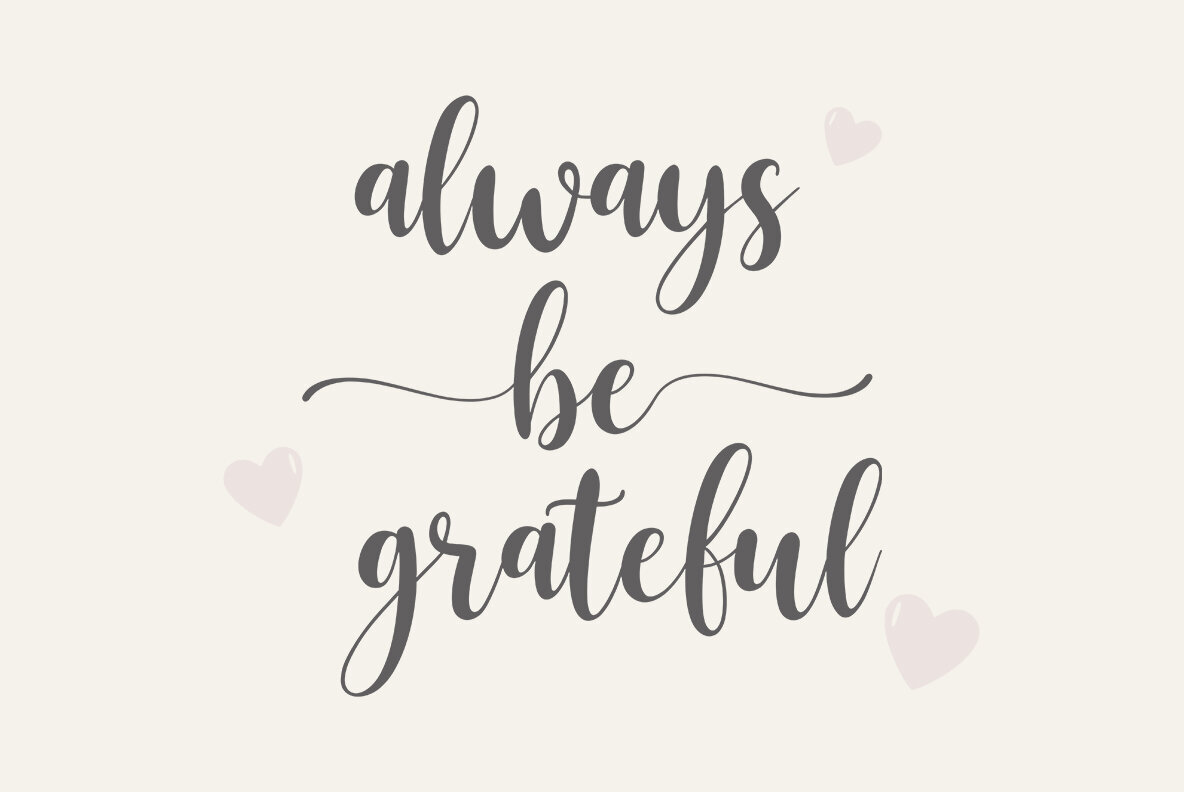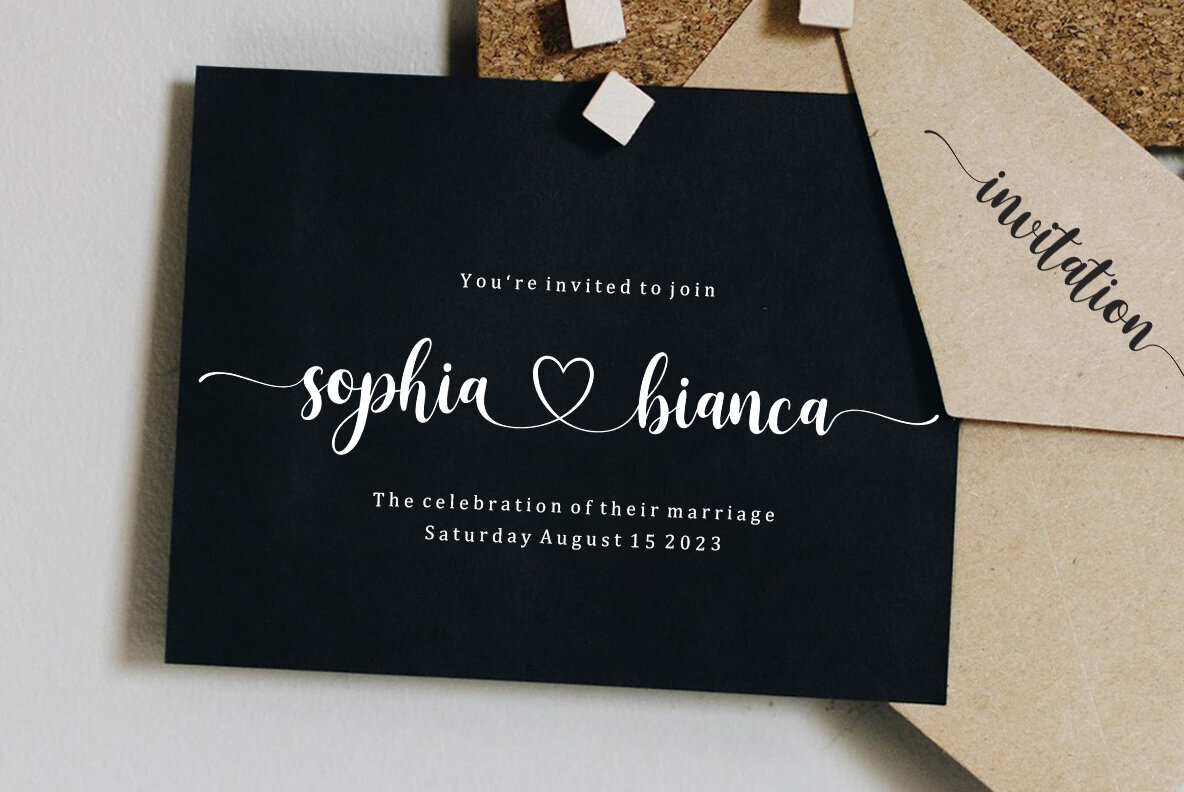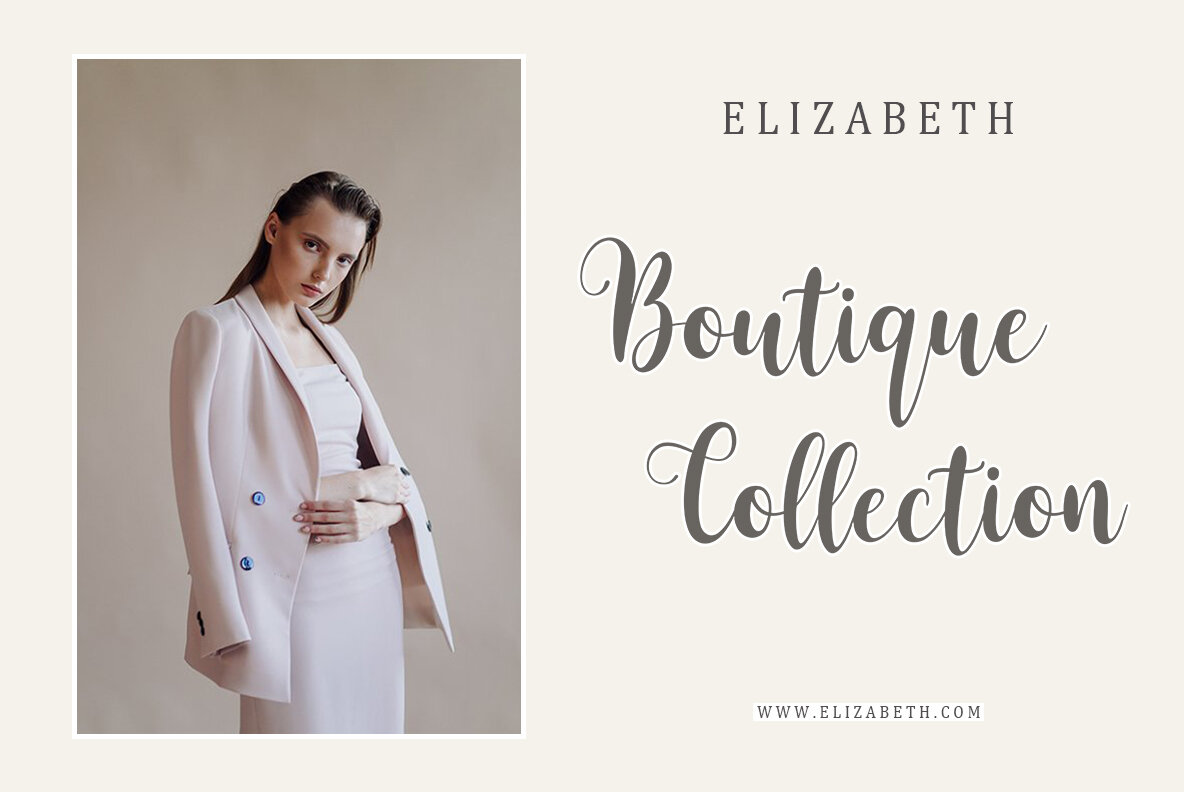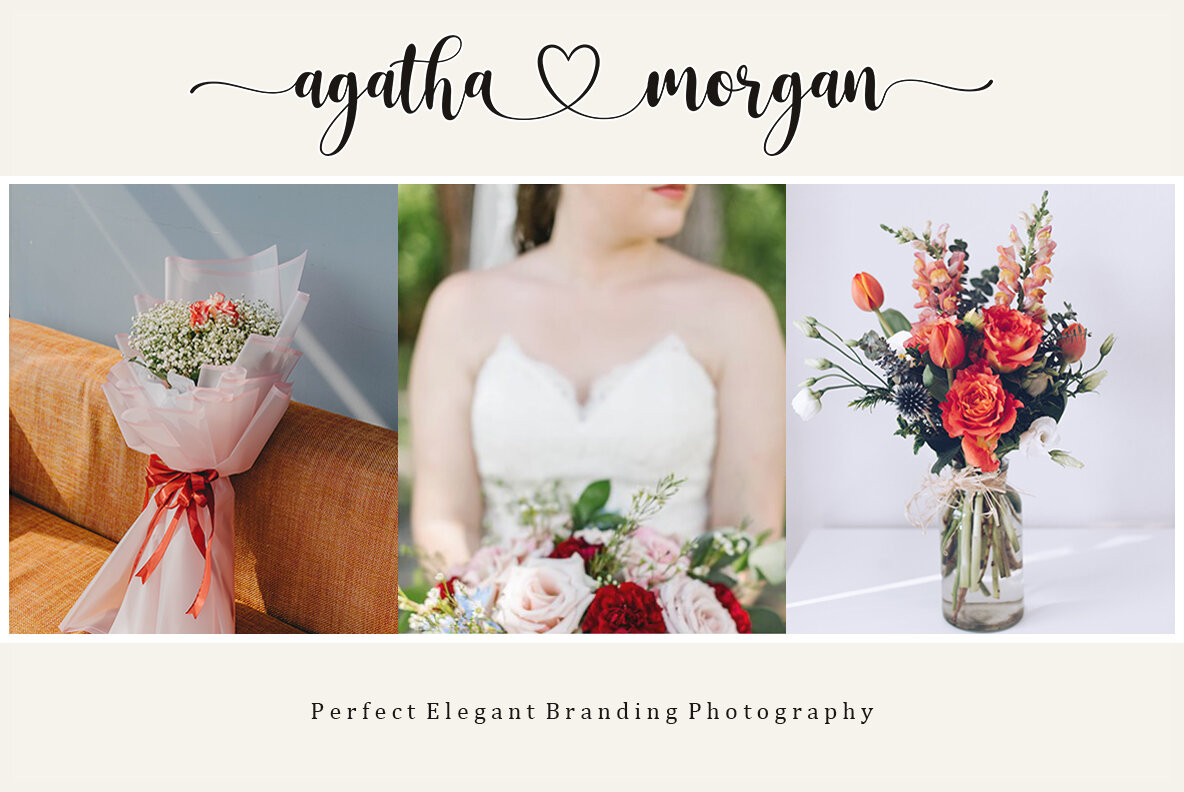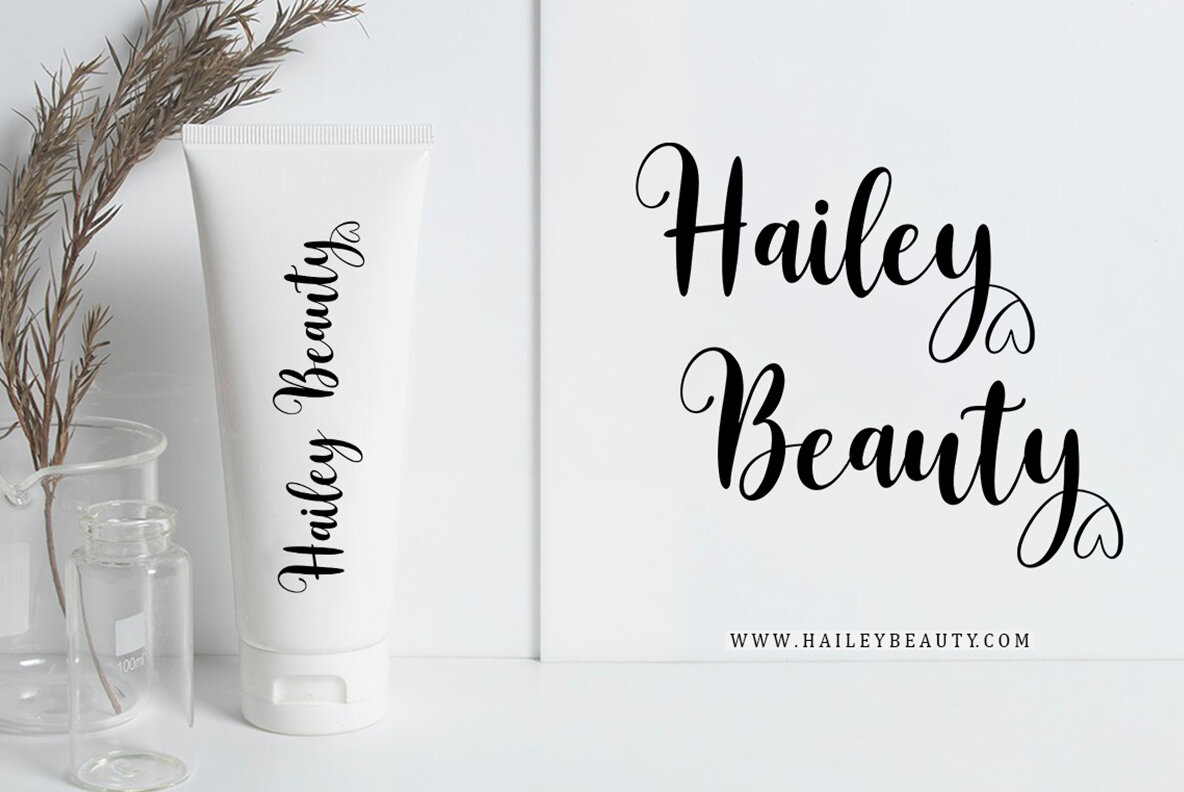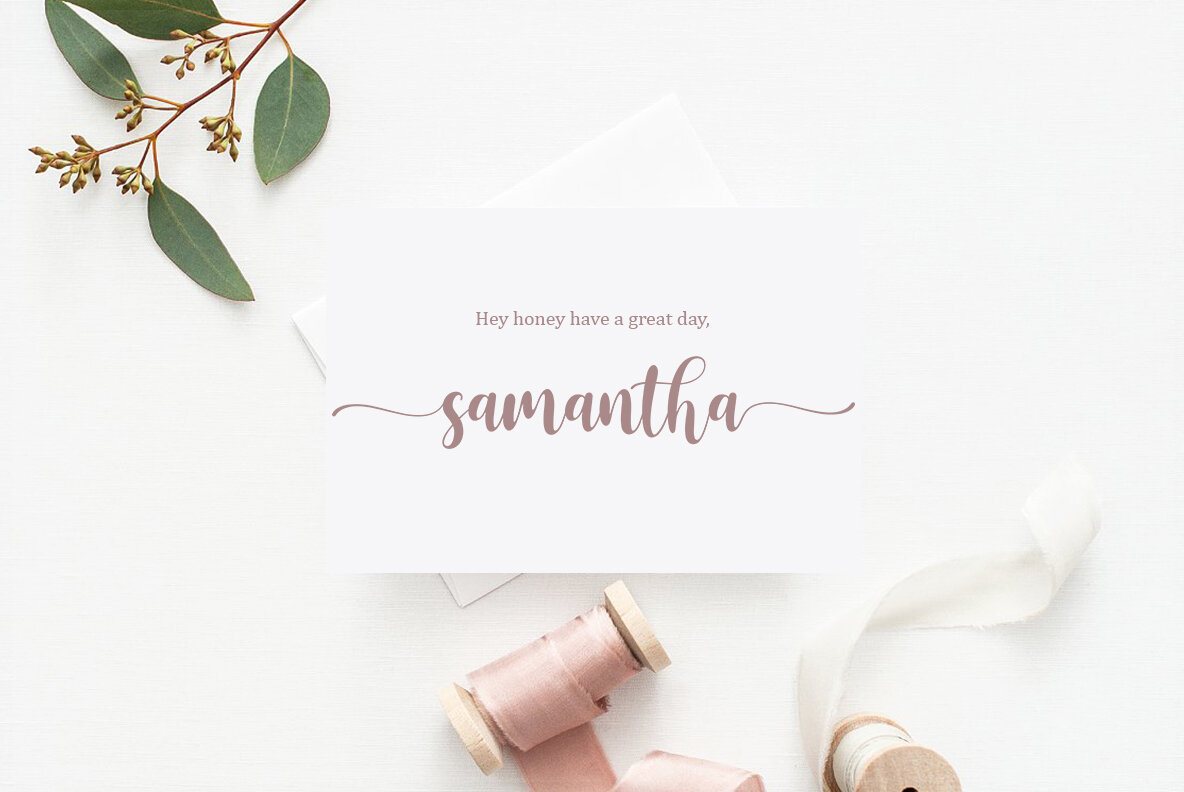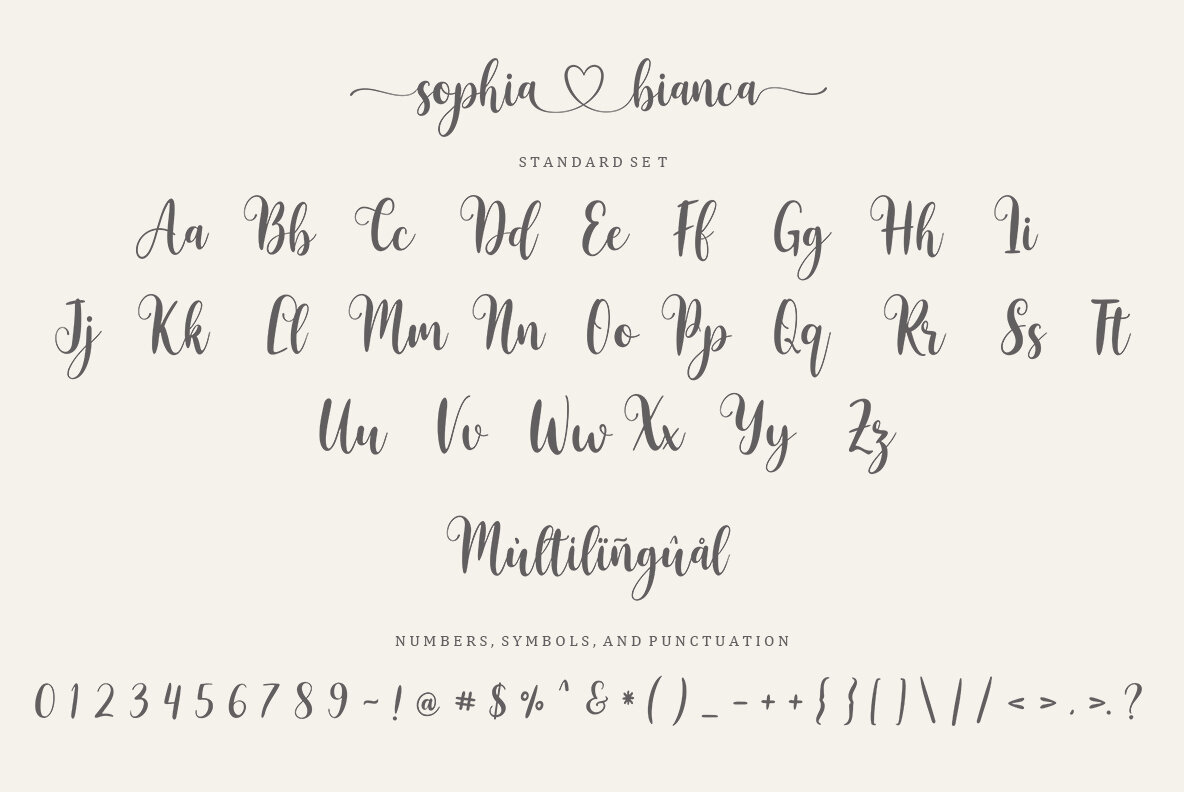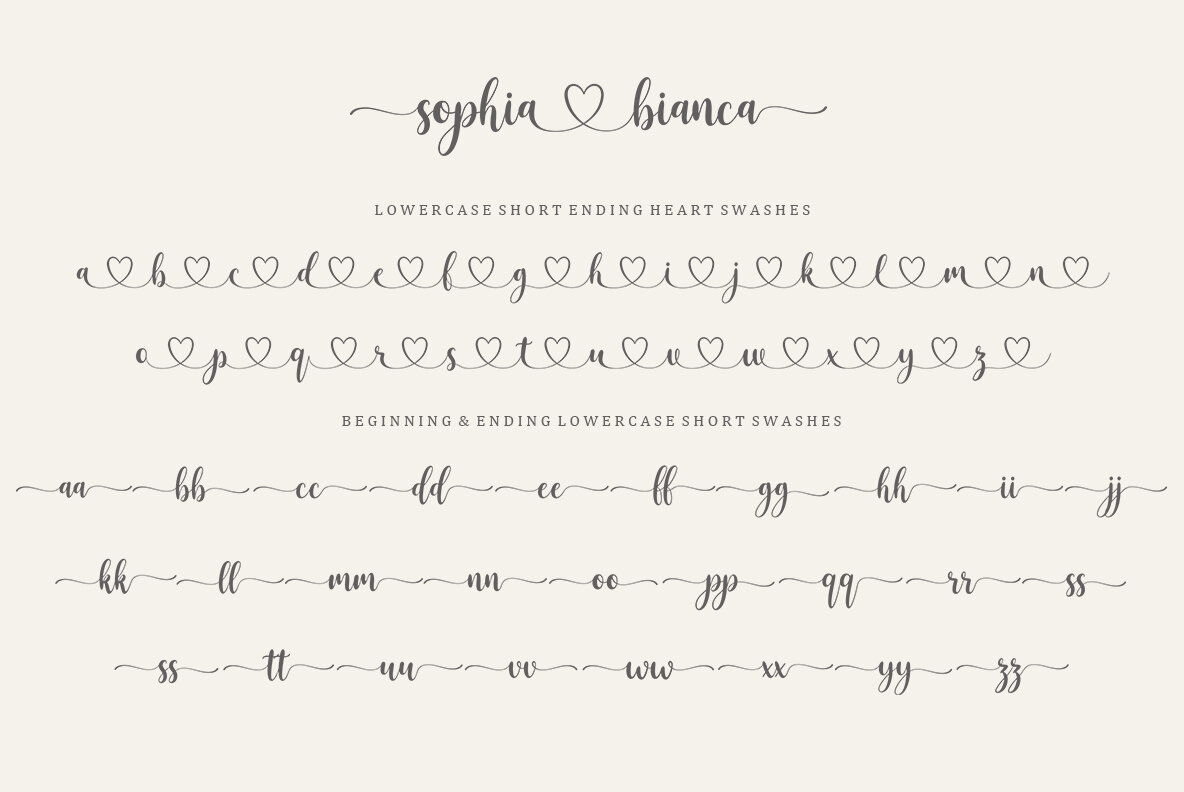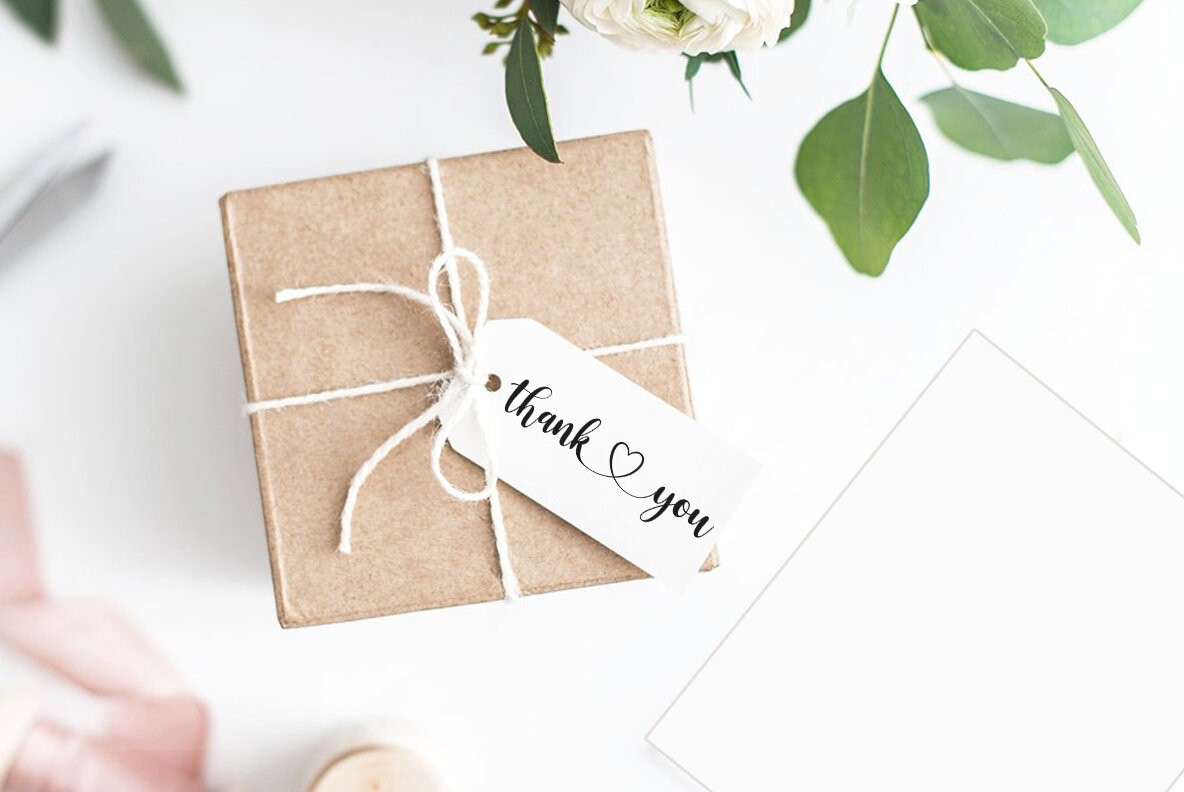
Sophia Bianca Font
Sophia Bianca
Sophia Bianca is a beautifully crafted handwriting font characterized by its smooth and lovely style. It's perfect for a variety of applications such as branding projects, home appliance design, product packaging, business cards, and invitation cards. It also adds a charming touch when used as a stylish text overlay on wallpapers or any design needing a hint of elegance.Sophia Bianca: Elegant Handwriting Font